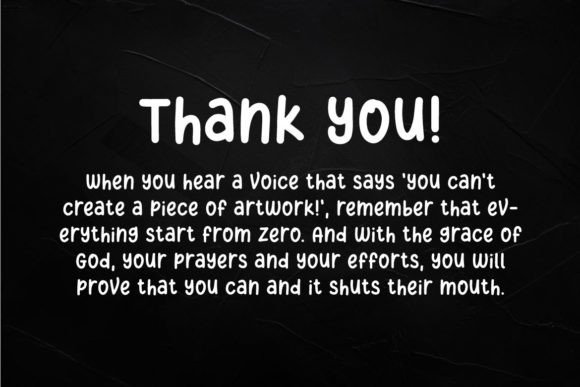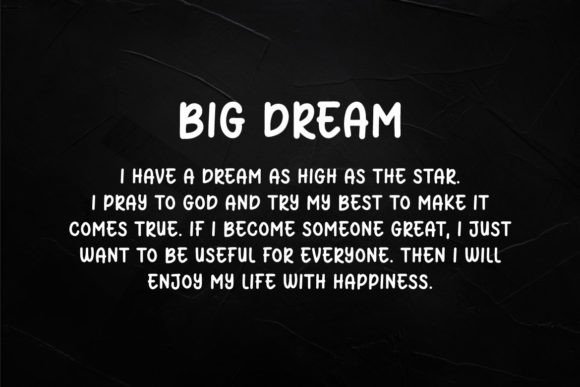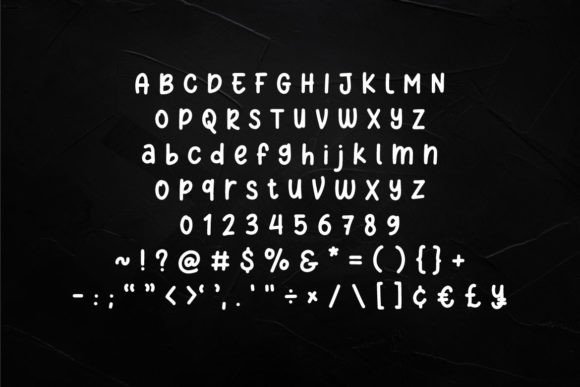
Introduction to Rest in Rock Font
Have you ever stared at a blank canvas, feeling the pressure to create something truly remarkable? The spark of inspiration is there, but the words just won’t come together. It’s moments like these that a well-designed font can be the game-changer you need.
Enter Rest in Rock Font, a modern sans serif font that’s about to become your new best friend. With its sleek lines and high-quality design, this font has the power to elevate your creative project to new heights. Whether you’re a seasoned designer or just starting out, Rest in Rock Font is the perfect addition to your design resource toolkit.
Not only is Rest in Rock Font a stunning choice, but it’s also free to download and can be used on a transparent background, giving you the flexibility to create something truly unique. In this article, we’ll delve into the world of Rest in Rock Font and explore what makes it such a valuable resource for designers like you.
Key Features of Rest in Rock Font
- High-quality, free font for creative projects and design resources, including posters, flyers, and more.
- Features a transparent background, making it easy to use in various design scenarios.
- Designed with a unique, bold aesthetic, perfect for adding a touch of rock-inspired style to any creative project.
Honest Review: Rest in Rock Font
I recently had the chance to explore the Rest in Rock Font, and I must say, it’s been an interesting experience. As a designer, I’m always on the lookout for high-quality design resources to elevate my creative projects.
- ✨ High-quality design: The Rest in Rock Font has a clean and modern design that’s perfect for various creative projects.
- ✨ Customizable: The font can be easily customized to fit different design needs, thanks to its transparent background.
- ⚠️ Limited font styles: The Rest in Rock Font only comes in a few font styles, which might not be enough for designers who need a wider range of options.
- ⚠️ Not suitable for complex projects: Due to its simplicity, the font might not be the best choice for complex design projects that require a lot of detail.
Overall, I think the Rest in Rock Font is a great addition to any designer’s toolkit. While it has its limitations, its high quality and free download make it a great resource for creative projects. With a little creativity, designers can make the most out of this font and achieve some amazing results.
To get the most out of the Rest in Rock Font, use it in bold and eye-catching ways. Pair it with a simple background to let the font be the focal point of your design.
The Rest in Rock Font is perfect for various creative projects, including:
- Music-related designs (e.g., album art, concert posters)
- Rock-inspired graphics (e.g., logos, icons)
- Edgy business designs (e.g., logos, brochures)
Alternatives to Rest in Rock Font
Montserrat is a popular sans-serif font that offers a modern and urban feel. It’s ideal for use in creative projects, such as logo design, branding, and digital displays. Montserrat is available for free download and comes with a transparent background, making it easy to integrate into any design. When to use: For designs that require a clean and modern look, Montserrat is a great alternative to Rest in Rock Font.
Comparison: Montserrat is more modern and versatile than Rest in Rock Font, with a wider range of weights and styles available. It’s also more suitable for digital displays and mobile apps.